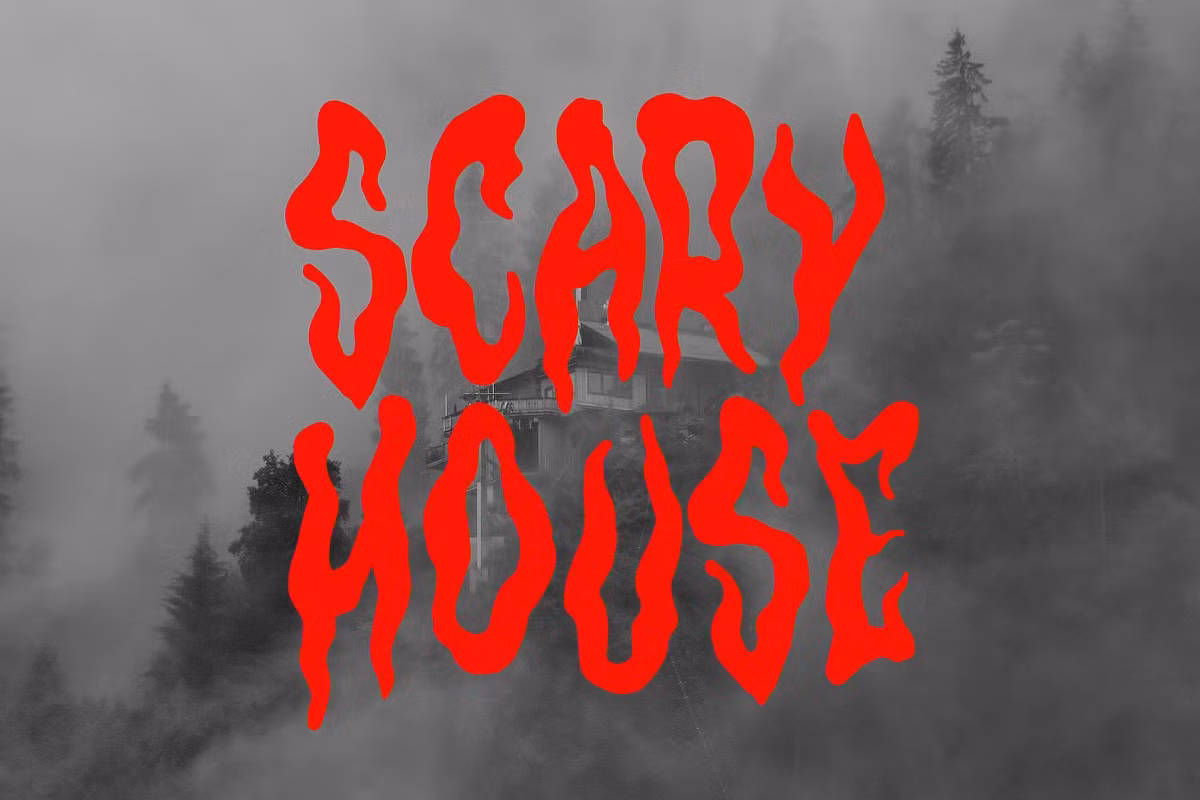
Hantu Font Free Download is a chilling and bold horror typeface designed to bring spine-tingling vibes to your Halloween-themed projects. With its sharp edges, eerie curves, and distorted shapes, Hantu is perfect for scary movie posters, haunted house flyers, spooky invitations, and creepy social media graphics. This font screams horror, making it ideal for any design that needs a terrifying touch.
Inspired by supernatural legends and ghostly aesthetics, Hantu Font Free Download captures the essence of fear and suspense. It’s the go-to choice for designers looking to create high-impact visuals that grab attention and build an unsettling atmosphere.
Whether you're designing for Halloween night events or building a brand around horror themes, Hantu delivers drama and intensity in every character. Its unique and disturbing look ensures your text won’t go unnoticed.